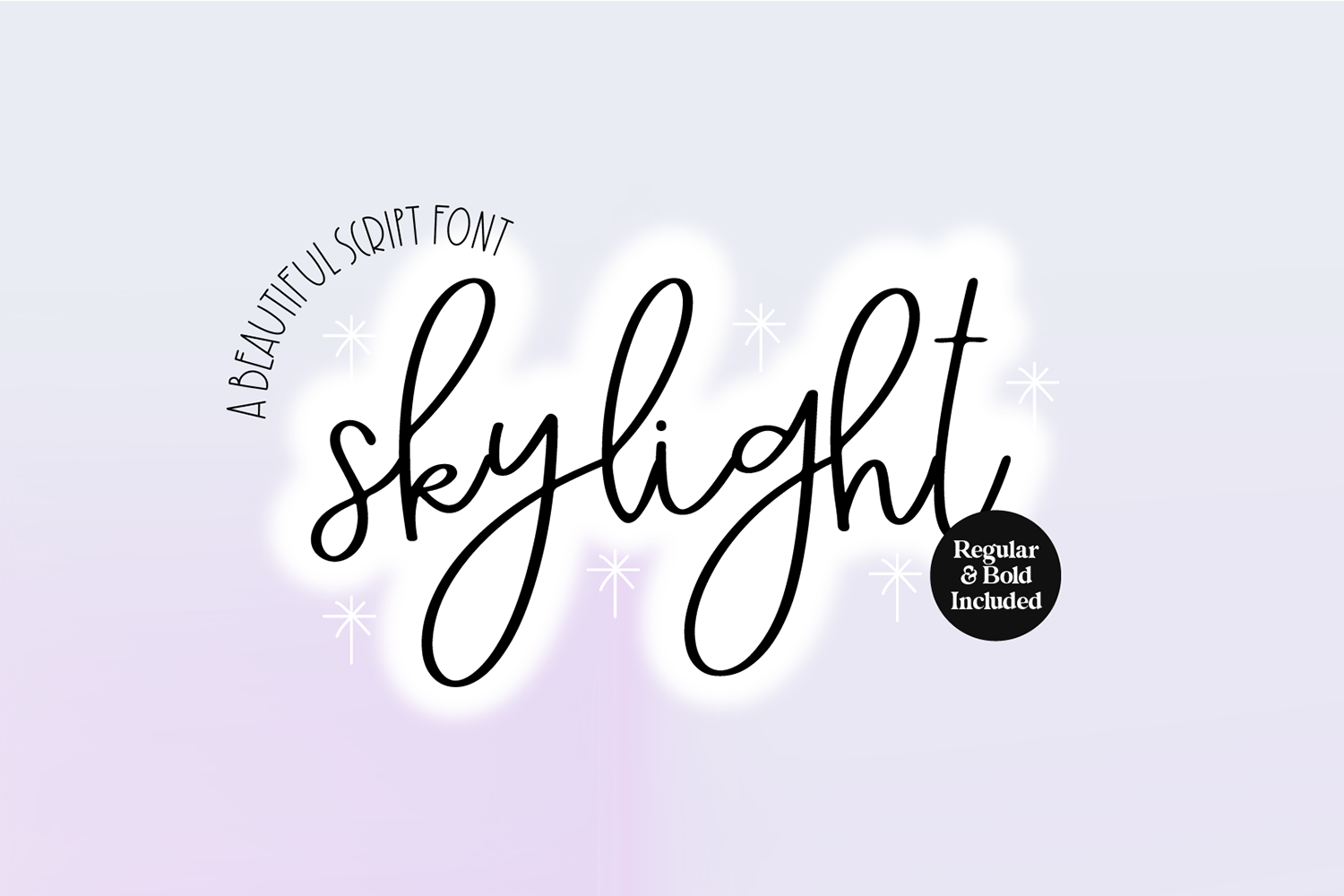
"BFC Skylight" bouncy cursive brush script font. 2 versions included! Bold and regular.
This font is a whimsical brush font that is perfect for social media or crafty projects. Use it for branding, crafts for decor, invitations, and more! This font includes upper and lowercase glyphs, numbers, basic punctuation marks. The regular version includes intl characters. The bold version does not include caps.